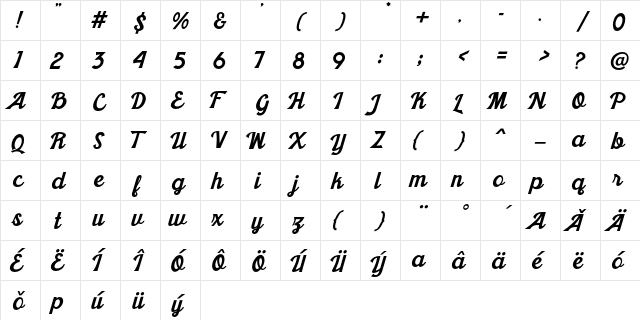
Khadija New Khadija New
Design Context for Khadija New Typeface
Khadija New is a composed and adaptable typeface that performs quietly and consistently across a wide range of design contexts.